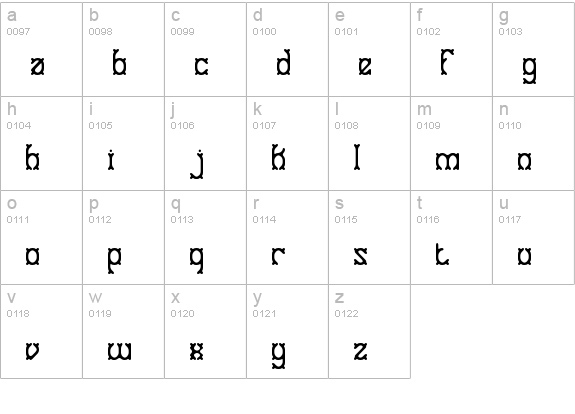
Goose Bumps BRK font is a spooky and playful typeface that will send shivers down your spine. With its jagged edges and bold lettering, this font is perfect for creating Halloween-themed designs, horror movie posters, and eerie invitations. The unique design of Goose Bumps BRK font captures the essence of a haunted house, making it a must-have for any project that needs a touch of mystery and suspense. The best part? Goose Bumps BRK font is completely free to download at FontsMarket.com! Whether you're a graphic designer working on a haunted house flyer or a DIY enthusiast creating spooky decorations for a party, this font is the perfect addition to your collection. So go ahead and add Goose Bumps BRK font to your design arsenal and let your creativity run wild!